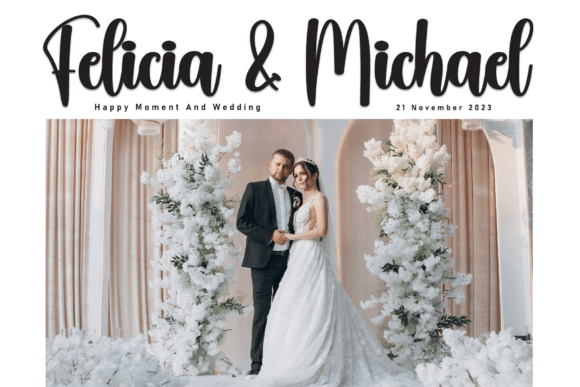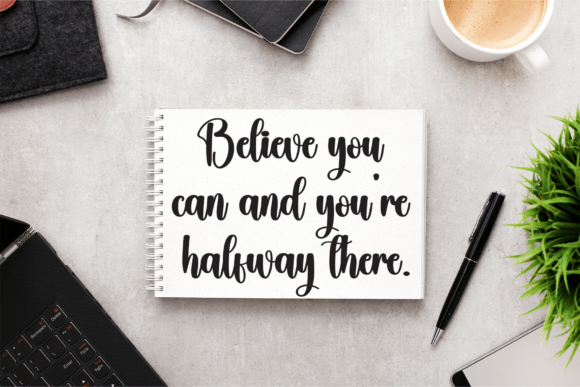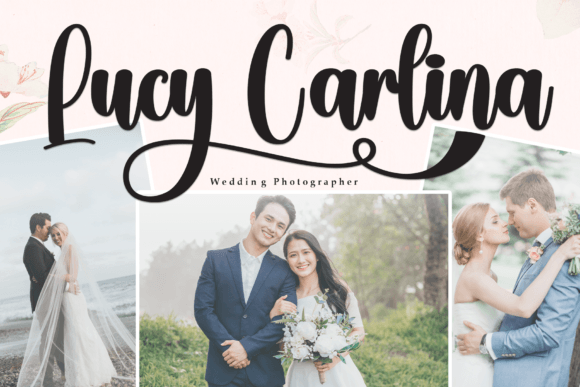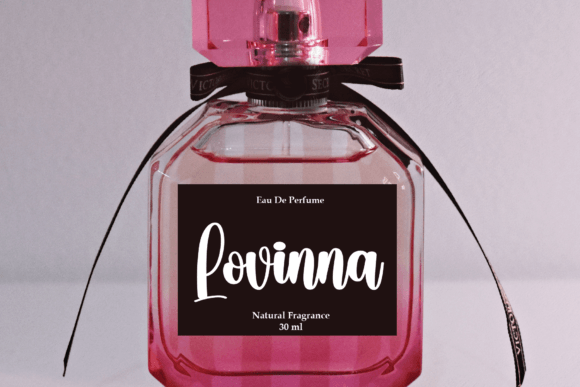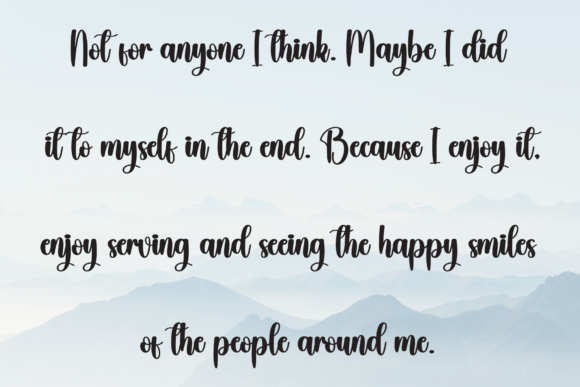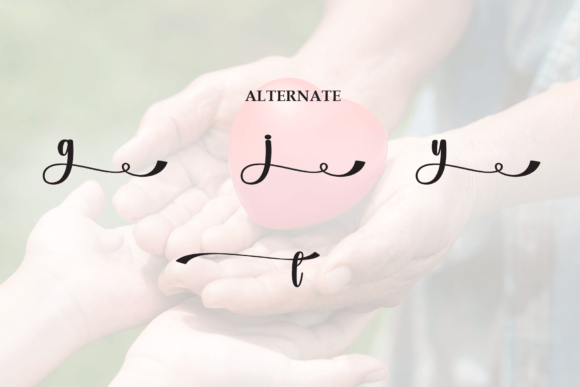
Introduction to Magnanimity Font
Do you remember that moment when you were brainstorming ideas for your next creative project and suddenly, the perfect font popped into your mind? It’s as if the universe aligned to give you the perfect visual representation of your vision. For designers, this moment is a dream come true, and with the right font, the possibilities are endless.
Enter the Magnanimity Font, a sweet and friendly handwritten font that’s sure to take your designs to the next level. With its natural and unique style, this font is incredibly versatile and can be used in a wide range of creative projects. Whether you’re working on a free download or a high-quality commercial project, the Magnanimity Font is a valuable resource that’s sure to deliver.
Key Features of Magnanimity Font
- High-quality design: The Magnanimity Font is designed with precision and care to provide a high-quality design resource for your creative project.
- Transparent background: The Magnanimity Font features a transparent background, allowing you to easily overlay it on any image or design element.
- Unique characteristics: The Magnanimity Font features a unique blend of modern and vintage elements, making it an excellent choice for designers looking to add a touch of elegance to their creative project.
- Design versatility: This font is highly versatile and can be used for a wide range of design projects, from logos and branding to packaging and advertising.
Honest Review: Magnanimity Font
I recently had the chance to try out the Magnanimity Font for a creative project, and I must say, it’s been a game-changer. This high-quality font has really taken my designs to the next level. What works well about the Magnanimity Font is its unique blend of elegance and sophistication, making it perfect for a wide range of applications.
- ✨ Unique design that sets it apart from other fonts
- ✨ High-quality, crisp lines and sharp edges
- ✨ Suitable for both print and digital design
One of the standout features of the Magnanimity Font is its transparent background, which makes it incredibly versatile. I’ve used it for everything from logo design to typography-heavy graphics, and it’s always delivered.
Of course, no font is perfect, and the Magnanimity Font has a few limitations. ⚠️ It’s not ideal for very small text sizes, and some users may find the design a bit too ornate. However, these are minor quibbles in an otherwise excellent font.
Overall, I’m thoroughly impressed with the Magnanimity Font. It’s a high-quality design resource that’s perfect for any creative project. Whether you’re a seasoned designer or just starting out, I highly recommend giving it a try.
Magnanimity Font
For the most effective use of the Magnanimity Font, consider the following tips:
- Use a transparent background to create a seamless design.
- Experiment with different font sizes and styles to achieve the desired visual impact.
- Combine the Magnanimity Font with other design elements to create a cohesive look.
The Magnanimity Font is ideal for various creative projects, including:
- Graphic design and branding materials.
- Infographics and data visualizations.
- Print and digital marketing materials.
Yes, the Magnanimity Font is a high-quality design resource. It has been carefully crafted to provide a unique and elegant look for your creative project. The font’s high-quality design ensures that it will display well in various contexts, from print to digital media.